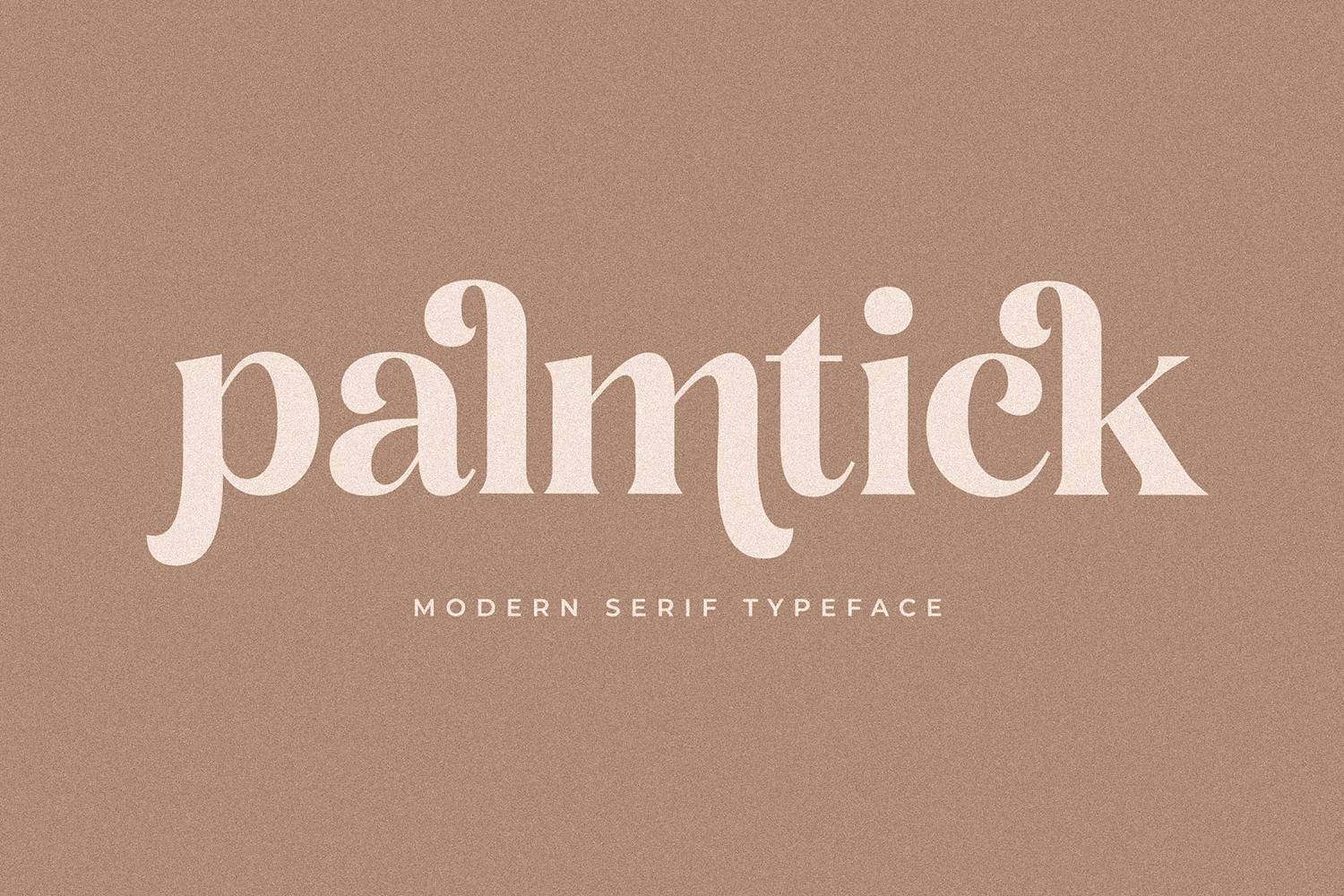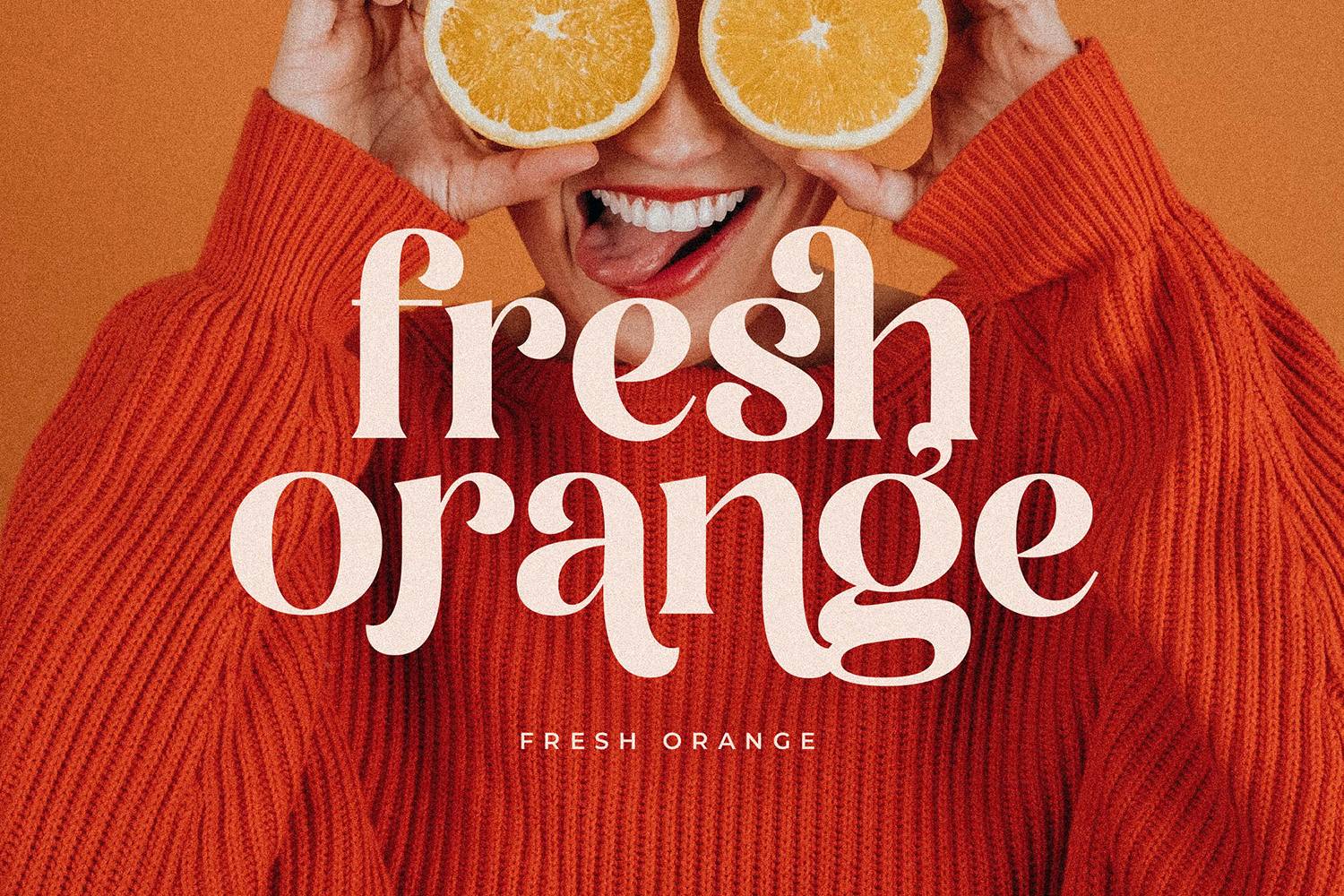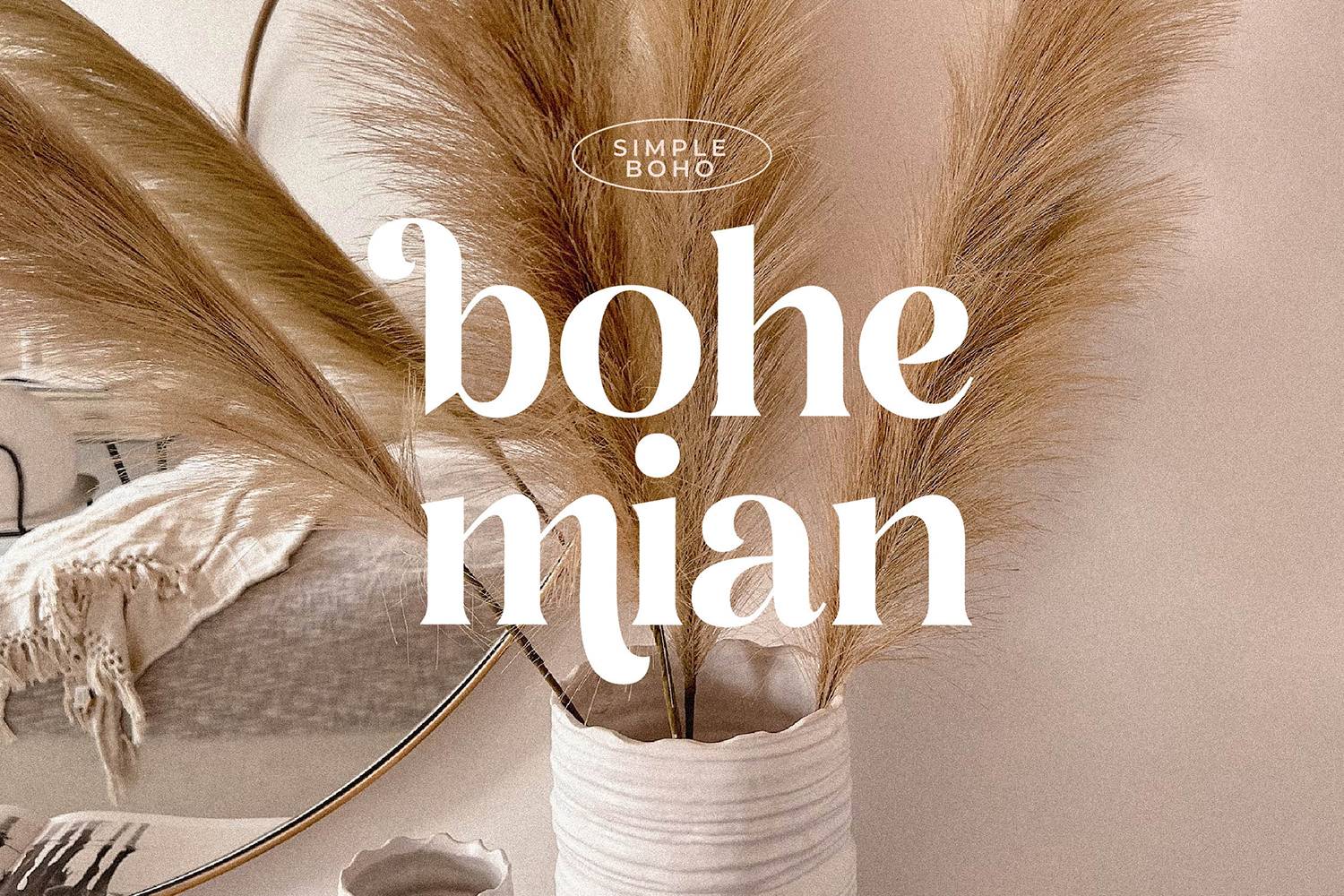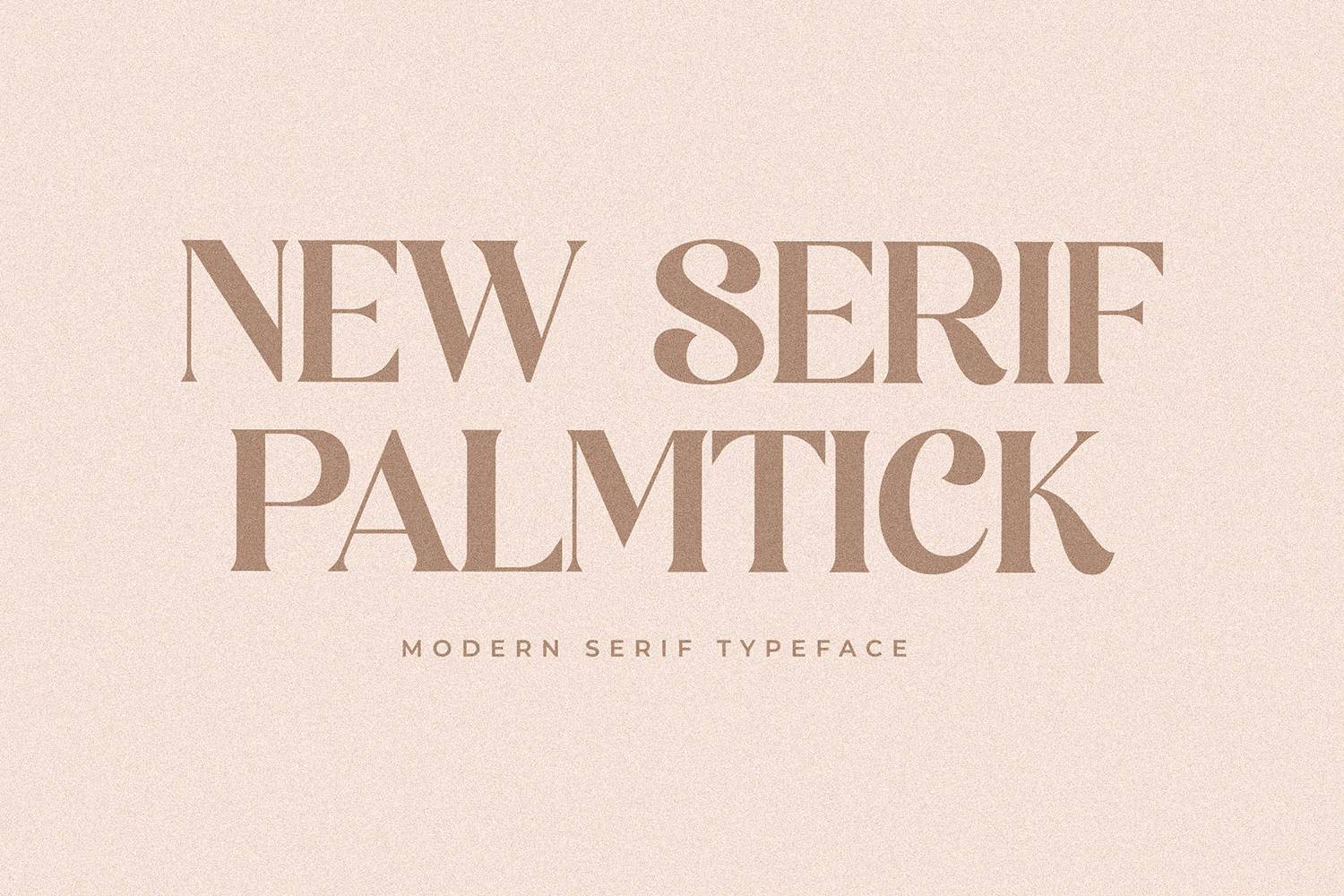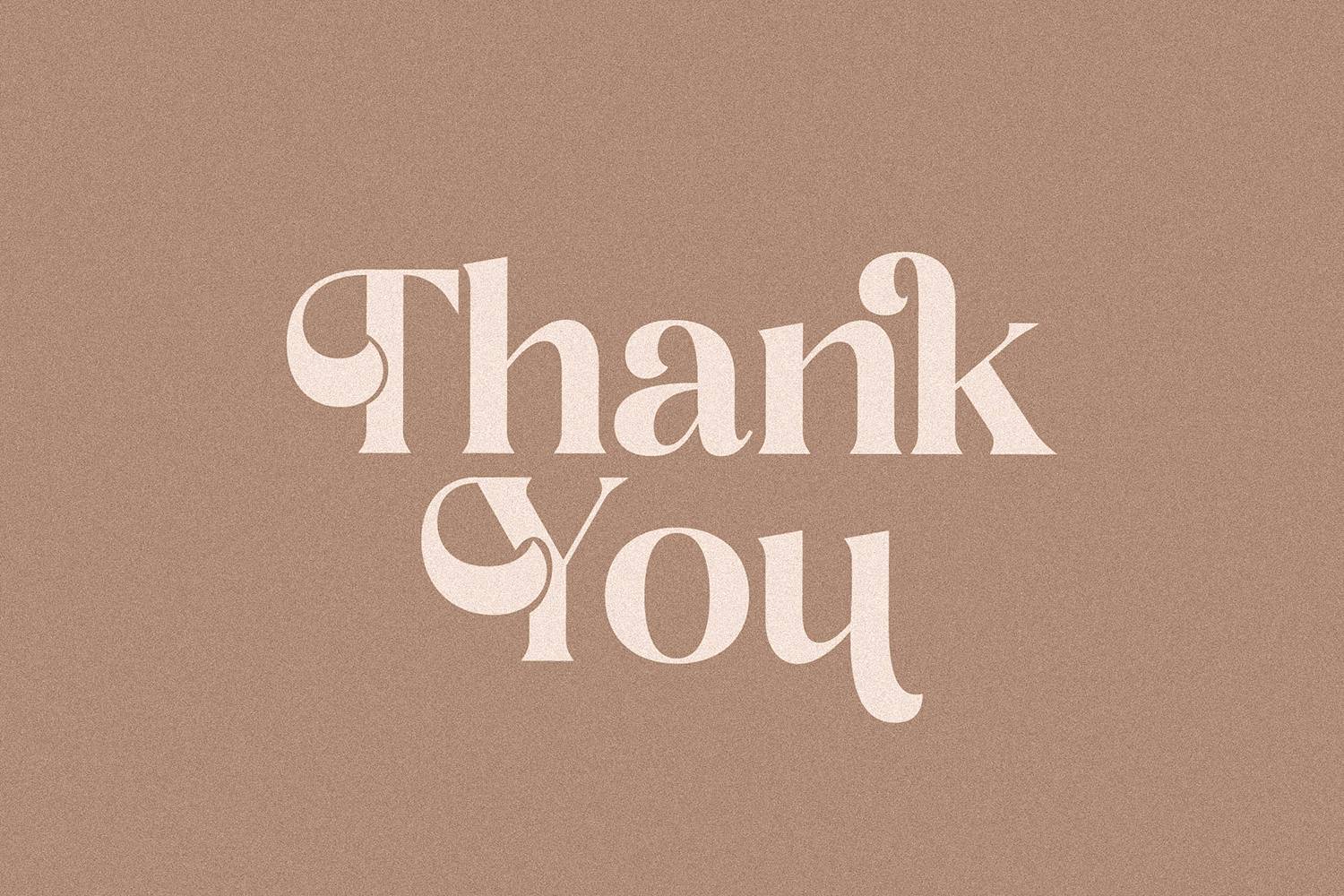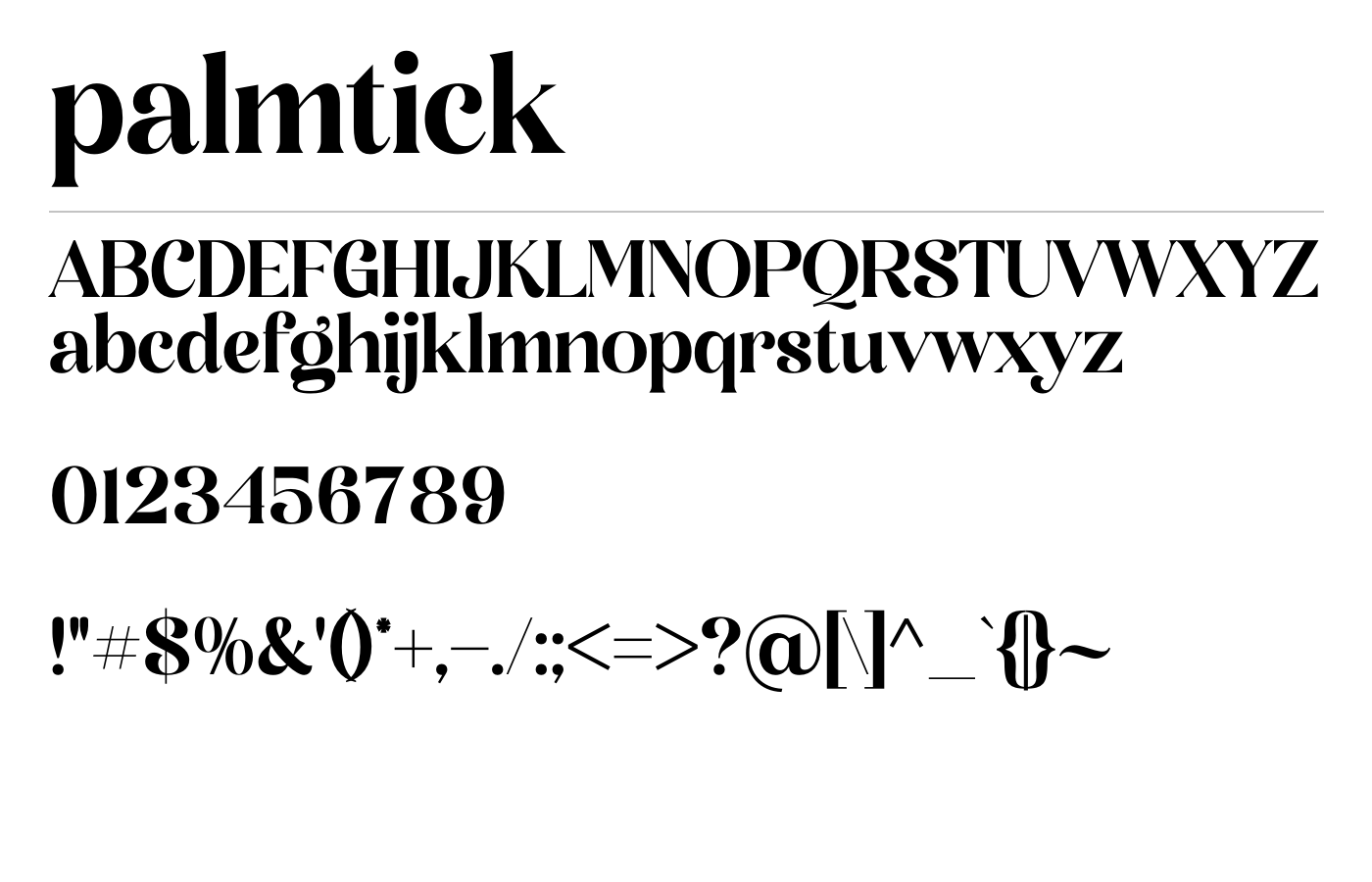
Palmtick is a stylish serif font featuring high contrast between thick and thin strokes and sharp, bracketed serifs that convey elegance and sophistication. Its distinctive letterforms, including a double-story 'a' and 'g' alongside unique terminals and a slightly condensed width, make it ideal for luxury branding, editorial headlines, and fashion packaging. With its refined and modern character, Palmtick adds a touch of classic charm and bold presence to any design.
Palmtick Font
About Palmtick Font
| Font family | Palmtick Font |
| Designer | Storytype Studio |